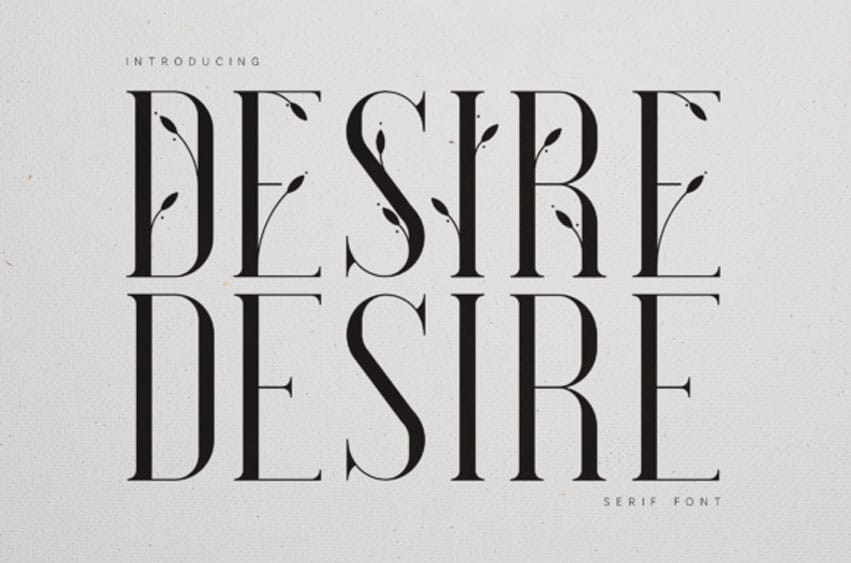
Desire Font is a refined botanical serif typeface that blends elegant letterforms with delicate organic leaf details. This typeface works beautifully for fashion branding, wedding designs, magazine layouts, logos, product packaging, invitations, and premium typography compositions.
Whether you’re creating luxury branding, elegant editorial layouts, or artistic typography, Desire adds sophistication and natural beauty to your designs.